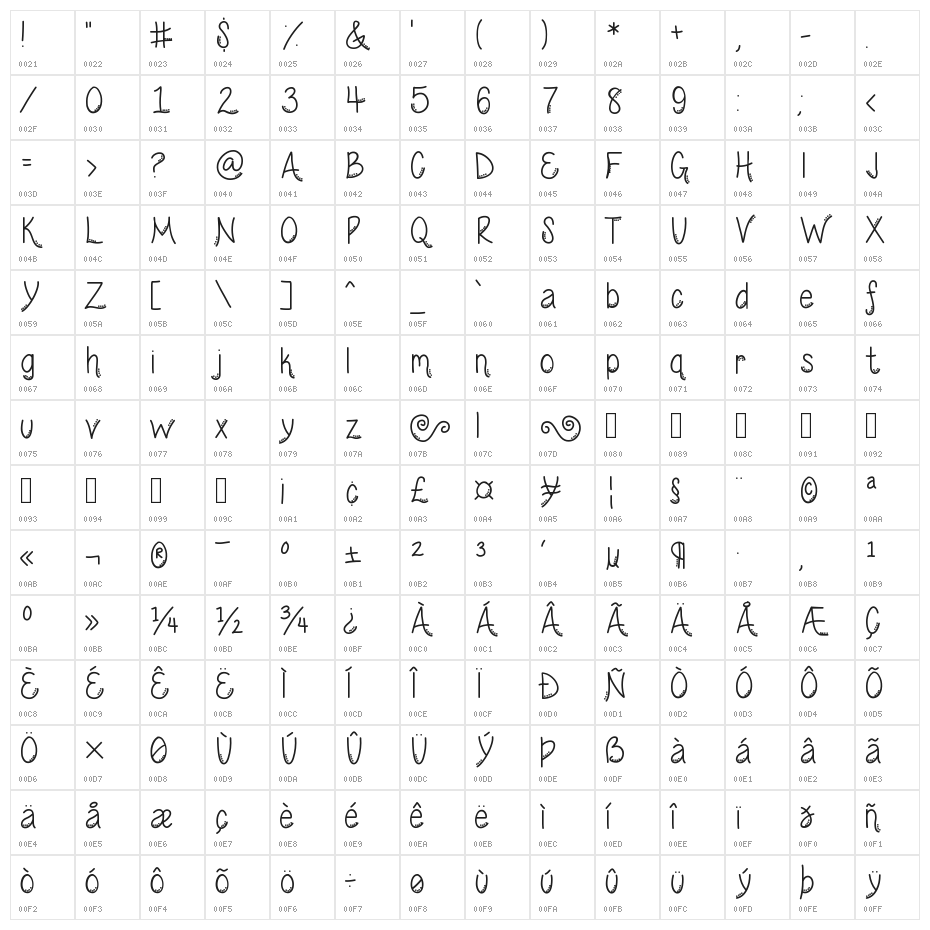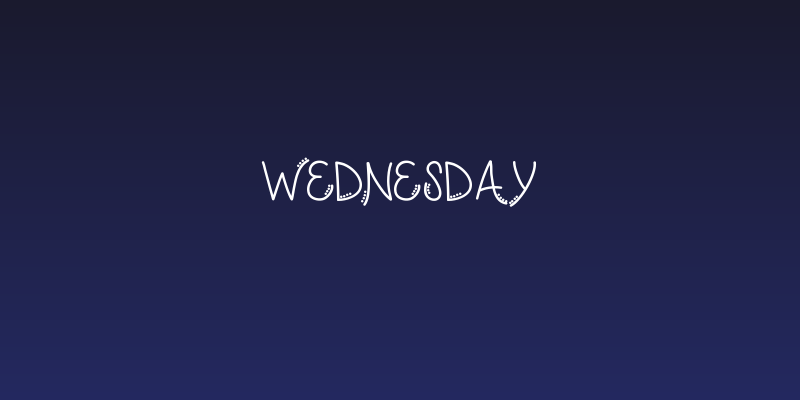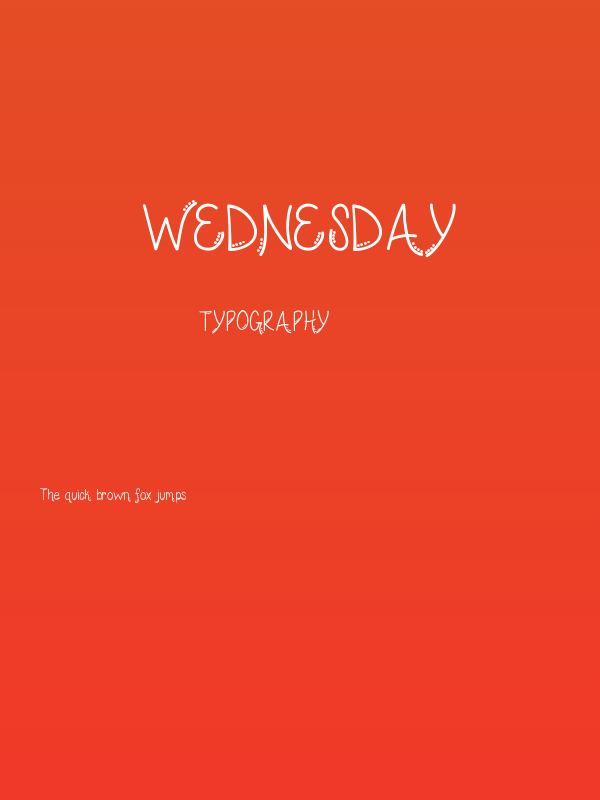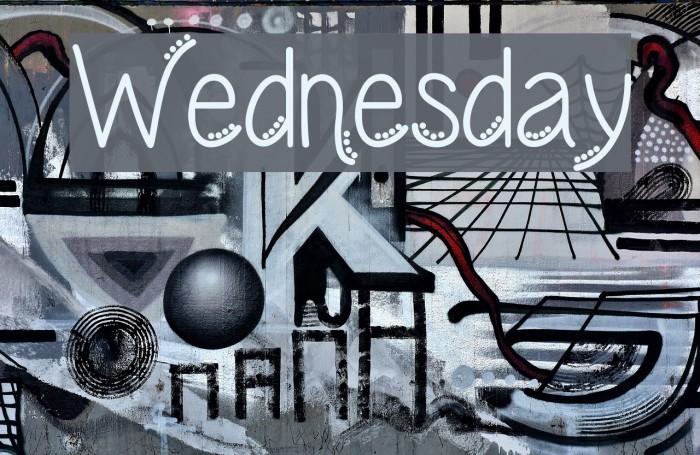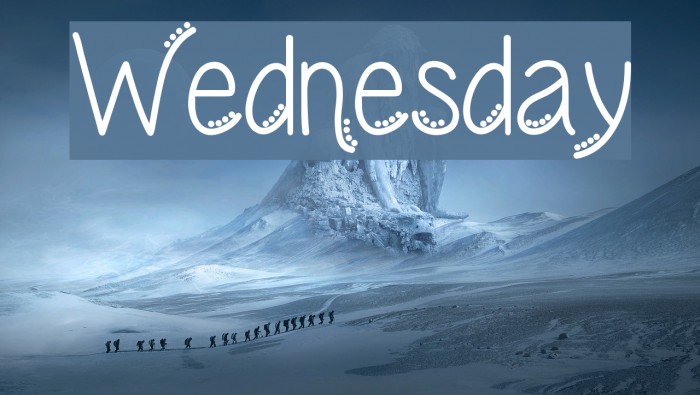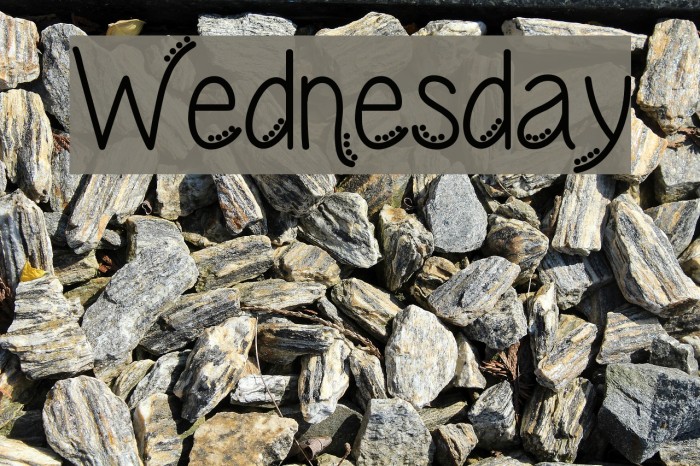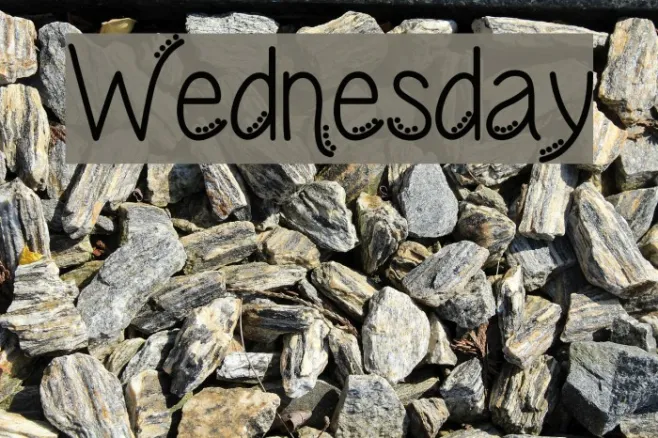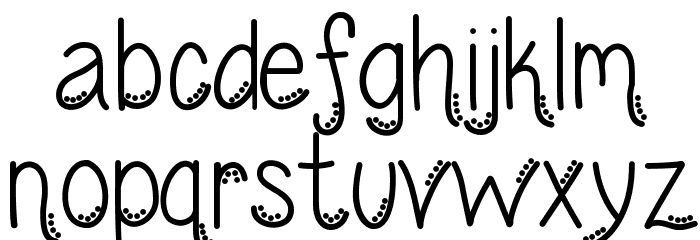
Wednesday Font
Wednesday Description
This playful and whimsical font features a unique dotted embellishment on each character, adding a touch of fun and creativity. The letters are slightly elongated with a casual, handwritten style that conveys a sense of approachability and friendliness. The rounded edges and consistent stroke width give it a smooth and cohesive appearance. The font includes both uppercase and lowercase letters, numerals, and a variety of special characters, making it versatile for different design needs. Its distinct style is perfect for projects that require a personal and informal touch.
| Overall Style | Whimsical |
| Use Case | Headlines, Logos, Invitations |
| Proposed Projects | Ideal for children's books, greeting cards, playful branding, and creative social media graphics. |